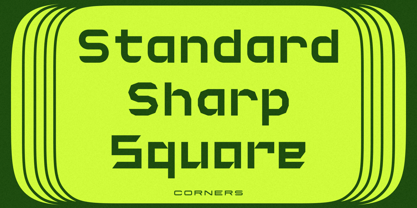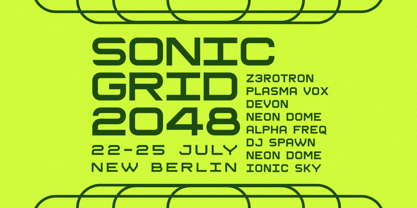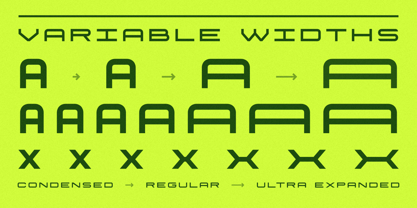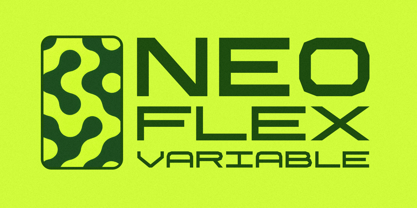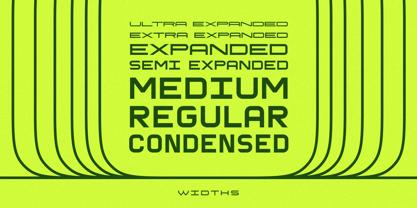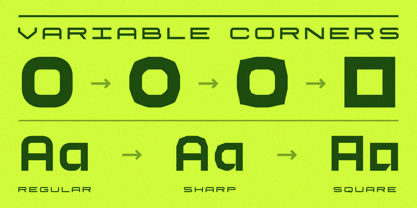
Neoflex
La familia tipográfica Neoflex fue diseñada por Matt Grey y publicada por Matt Grey Design. Neoflex contiene 22 estilos y opciones de paquete familiar. Más información sobre esta familia
NeoFlex is a futuristic, flexible display typeface designed for maximum visual impact. Inspired by the energetic world of underground techno posters, rave flyers, and electronic music culture, NeoFlex fuses geometric construction with industrial brutalism — perfect for anything that demands attention.
It comes as a single variable font, giving you full control over width and corner behaviour so you can dial in exactly the look you want. Ideal for responsive design or pushing the limits of typography in motion.
The family includes three corner styles:
• Standard with soft curves
• Sharp with angular cuts
• Square with strict, modular forms
Each corner style features seven widths, from Condensed to UltraExpanded, giving you a wide range of tone, pacing, and visual rhythm to explore.
NeoFlex was built for posters, album artwork, editorial headlines, and any context where type needs to make a statement. Whether you’re working in print or digital, static or motion, NeoFlex gives you a complete system to explore scale, contrast, and structure without losing cohesion.
Bold, adaptable, and built to move.